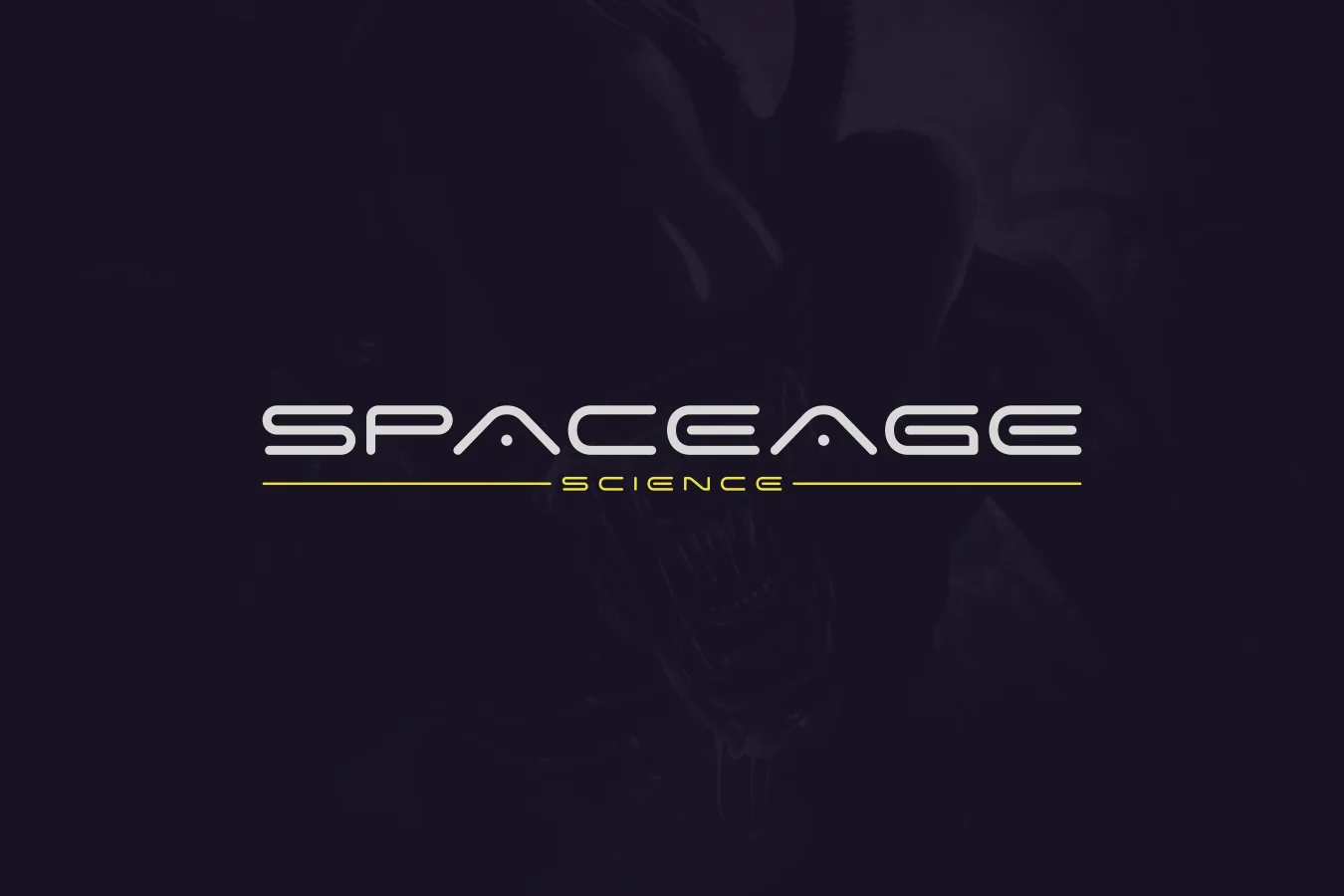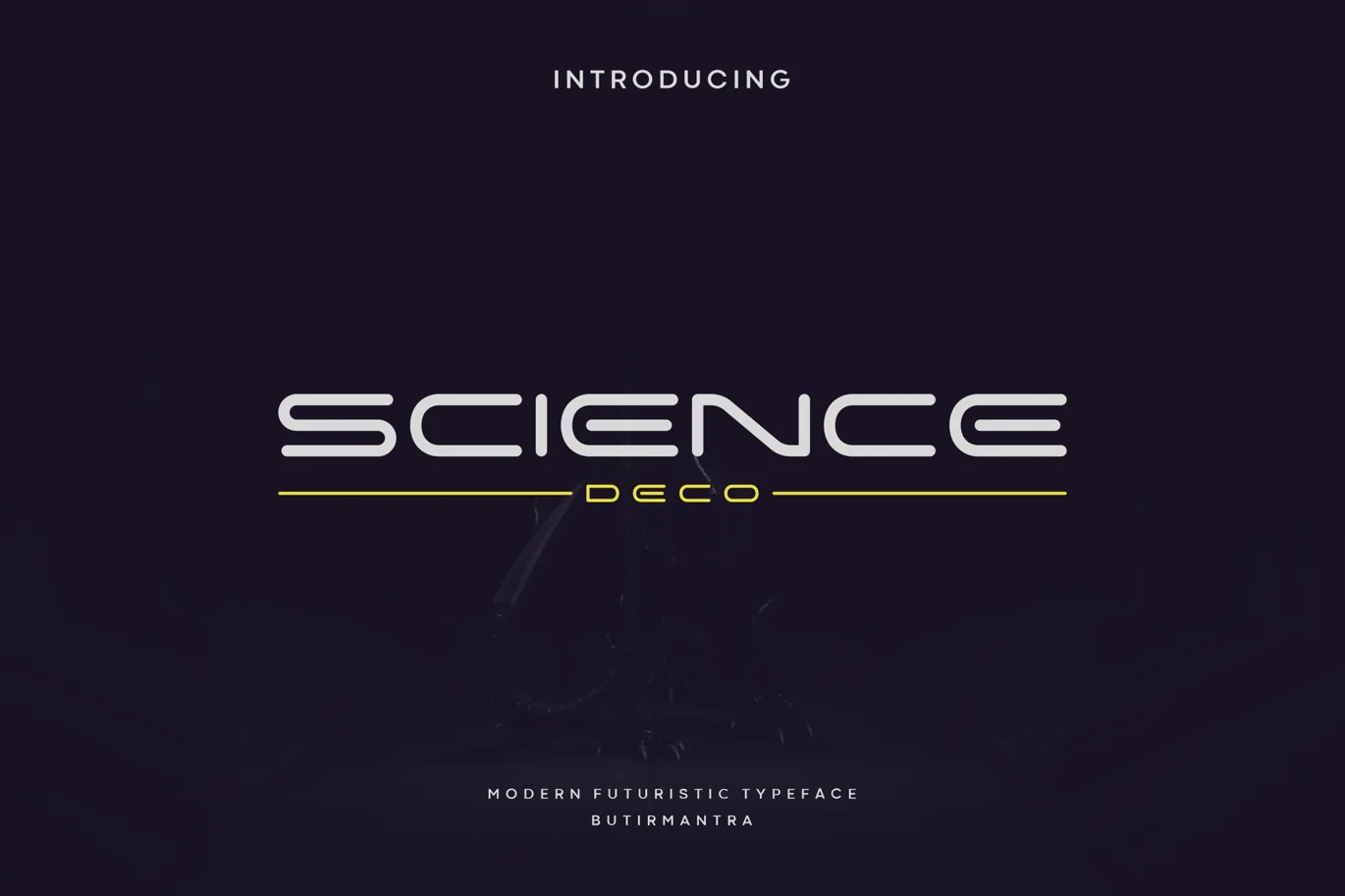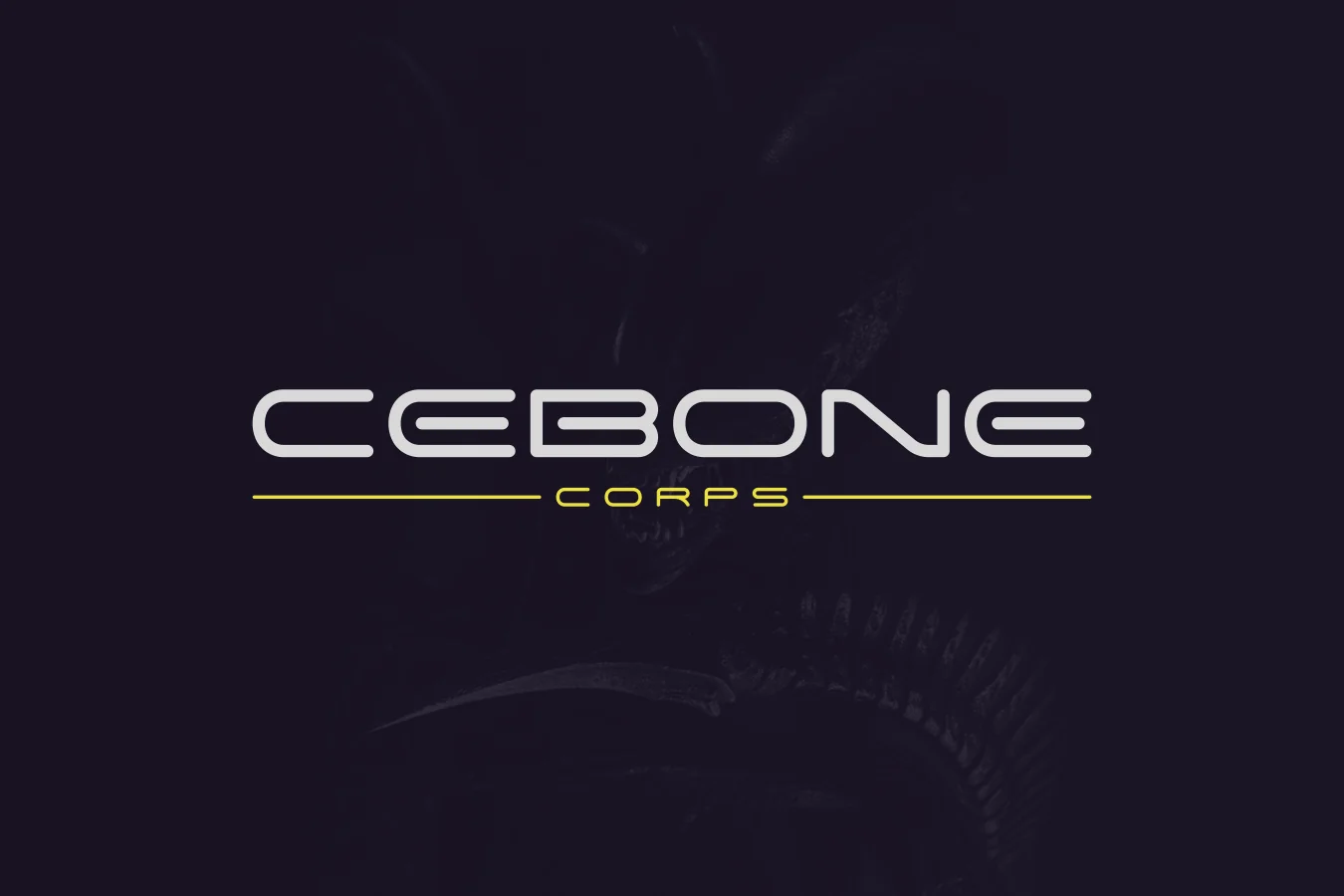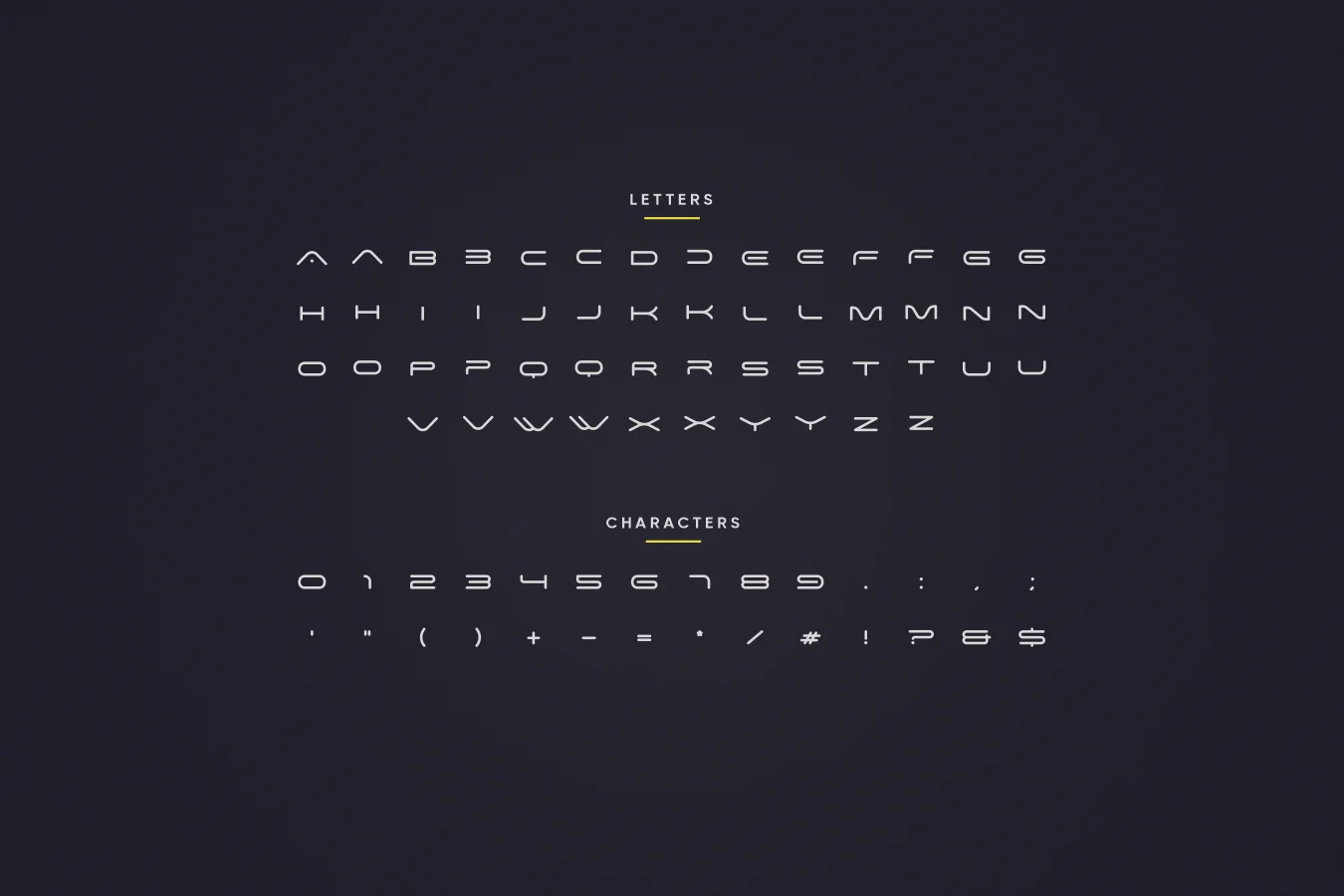
Science – Futuristic Font
Science is a futuristic font, inspired by the visual of technology that we can find from logo, sci-fi movies, games, and the present gadgets. Designed with minimalist style and unique letterforms, perfect choice to use on logos, labels, posters, packaging, books, movies, presentations, games, and much more. Science has two slightly different styles on lower case that give your design looks more futuristic and dynamic.